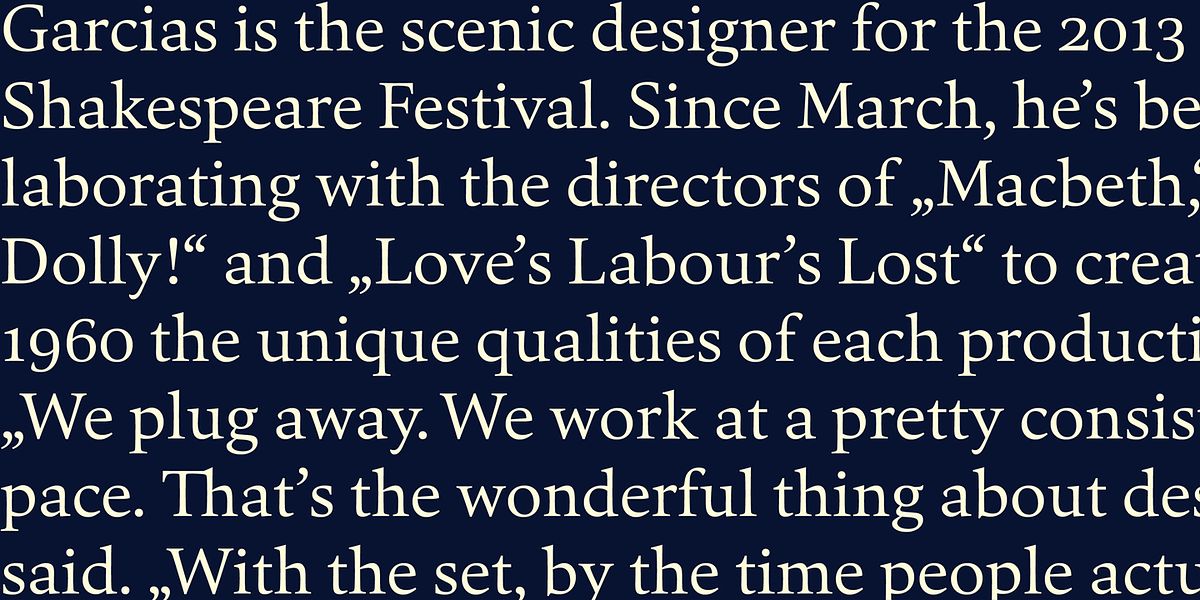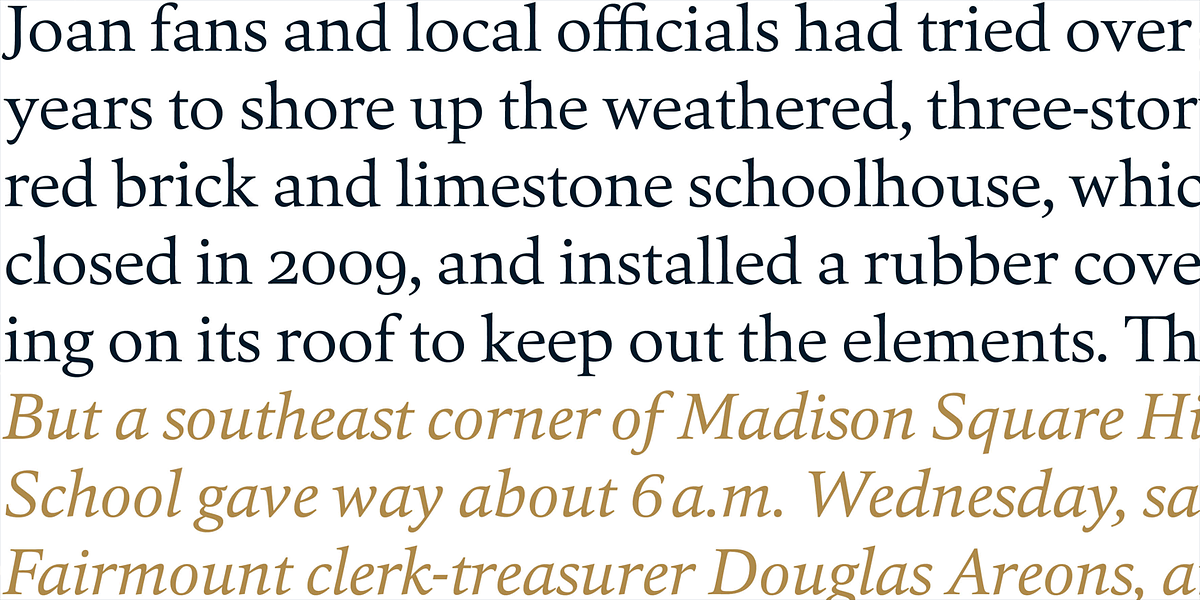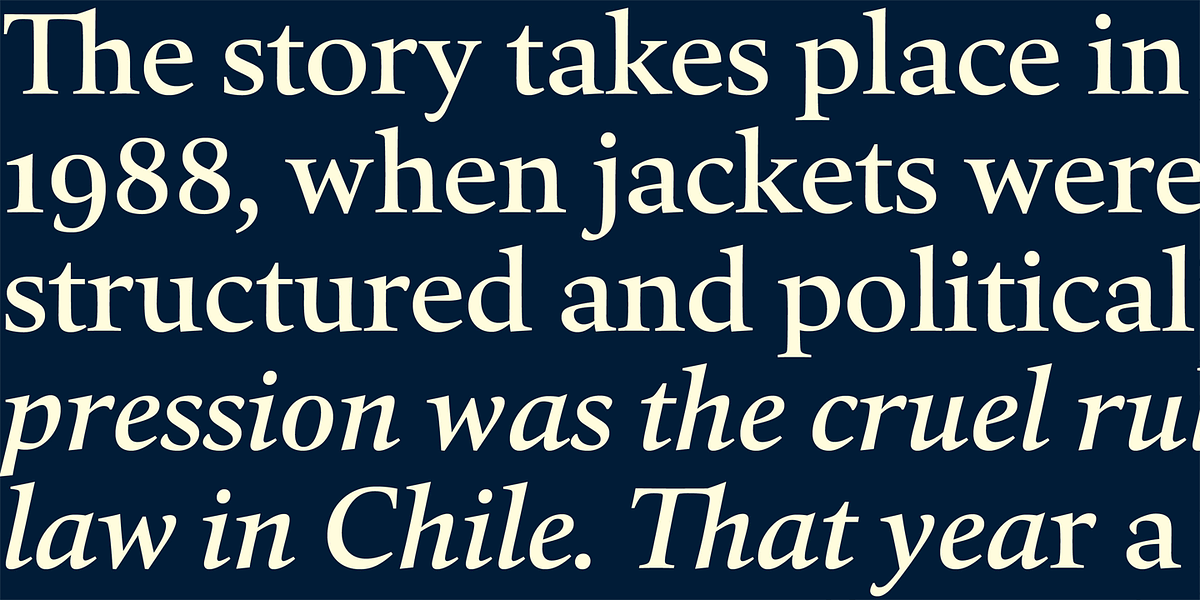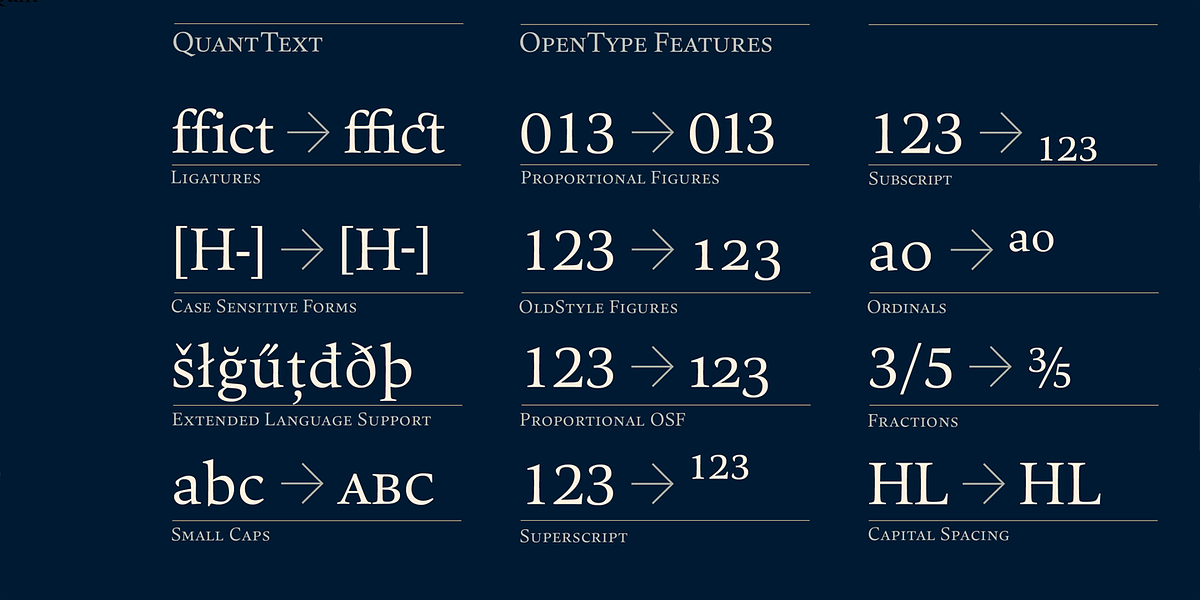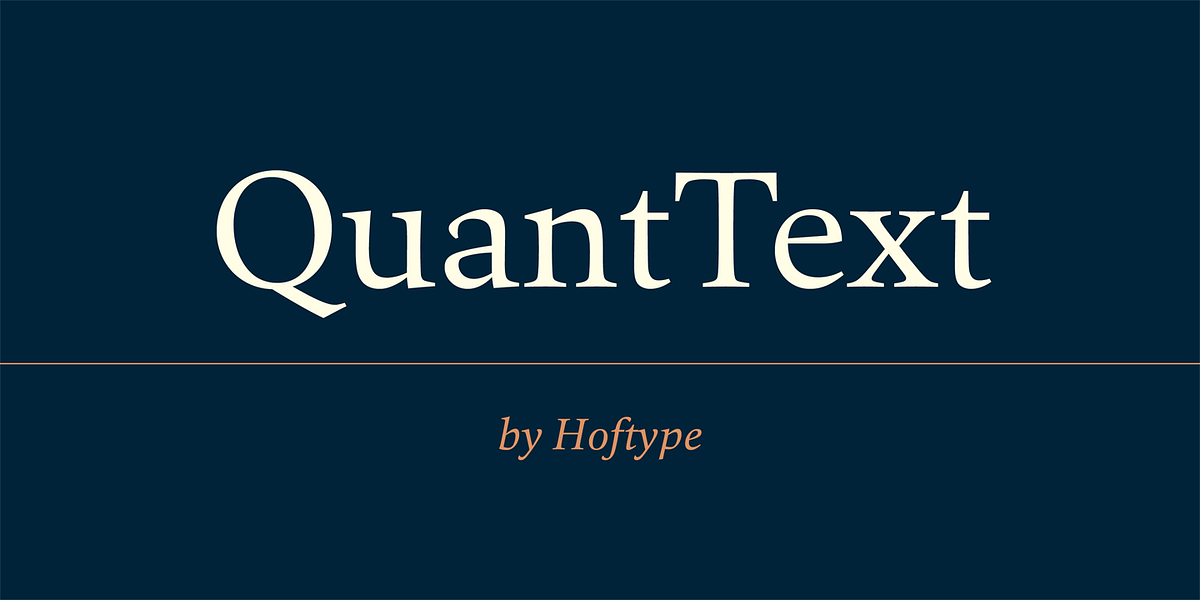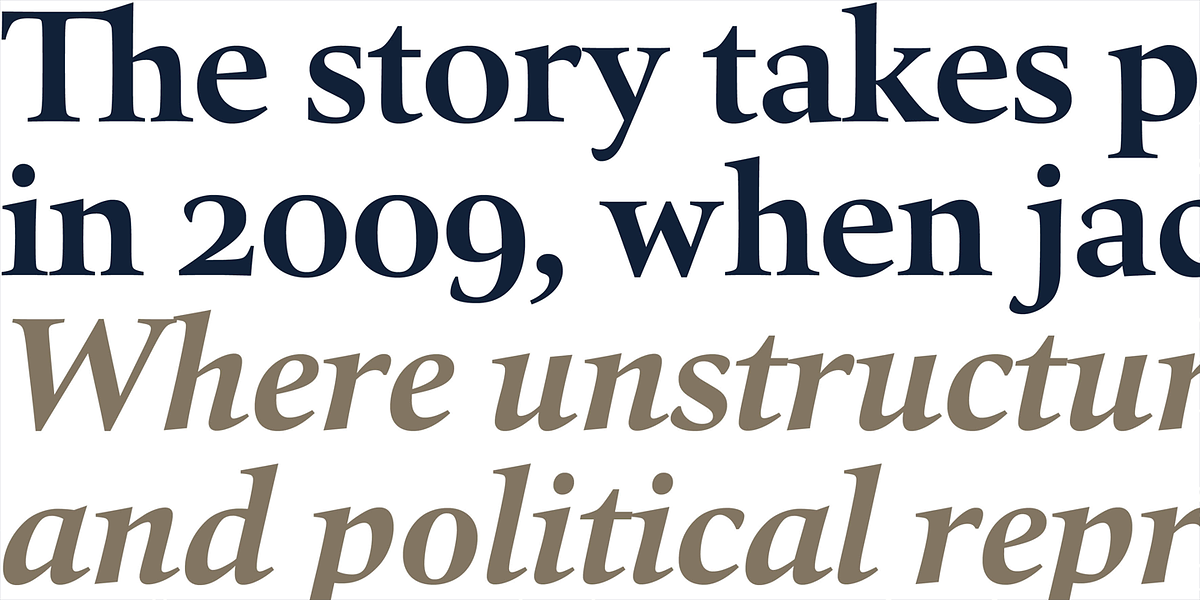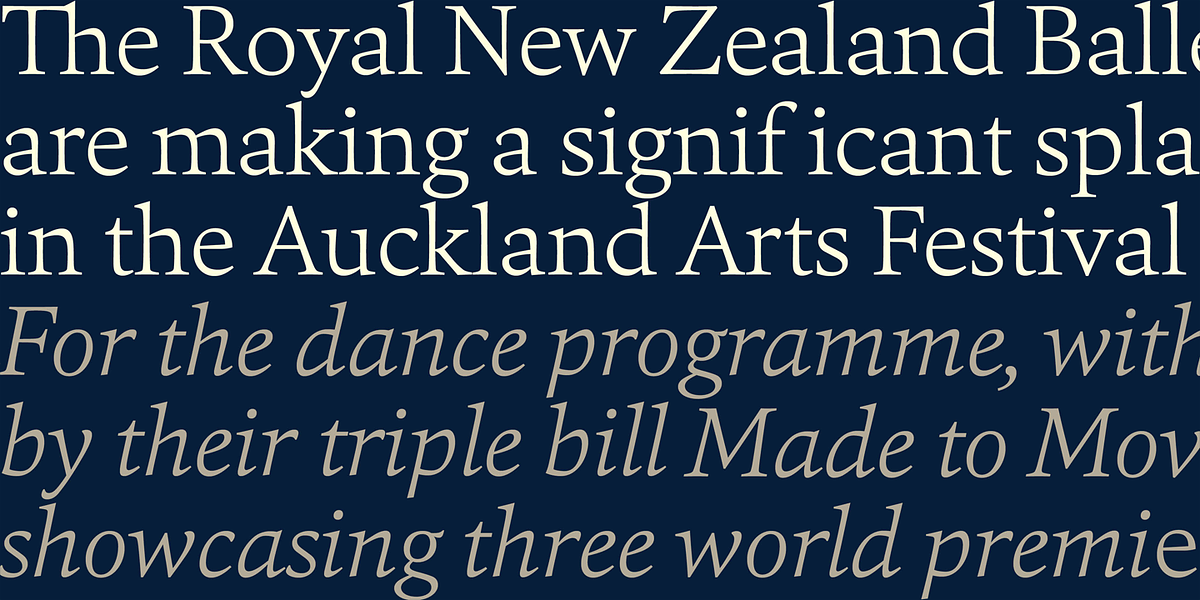
Quant Text
Quant Text is a transitional serif typeface designed for versatility. It features strong serifs and hairlines, making it legible at small sizes while retaining a bold presence suitable for headlines. The font includes extensive language support and a range of typographic features like small caps, various numeral styles, and currency symbols.